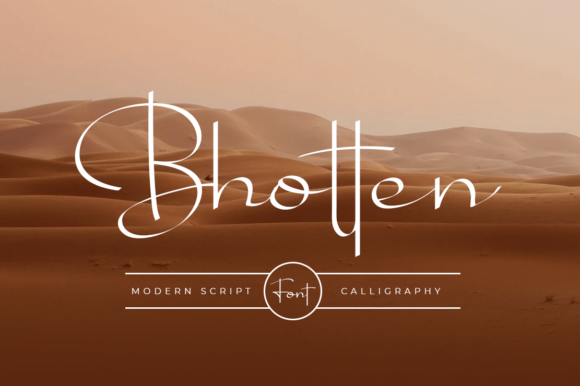
Bhotten Script: Crafting Elegance for Modern Branding
There is a specific challenge in modern design: finding a typeface that balances genuine artistry with functional versatility. We often encounter fonts that are beautiful but illegible, or practical but sterile. Bhotten Script enters this space as a solution for creatives who refuse to compromise. It is a magical script font, carefully constructed with a distinct touch of elegance that bridges the gap between high-end design and accessible creativity. Whether you are curating your aesthetic for Instagram or drafting complex DIY projects, this font offers a fluidity that transforms standard text into a visual statement.
The Visual Personality of Bhotten Script
When analyzing a script font, the details matter. Bhotten Script is not merely a collection of connected letters; it is a cohesive design system. The typeface features a natural, flowing baseline that mimics the rhythm of hand-lettering without the inconsistencies of actual handwriting. The swashes are confident yet restrained, offering enough flair to be interesting without overwhelming the message. This creates a personality that feels authentic and approachable, yet undeniably premium.
The character of Bhotten Script lies in its ability to feel personal. It avoids the overly geometric shapes of modern typography, opting instead for organic curves and varied stroke widths. This gives the creative font a warmth that rigid sans serif font options often lack. It speaks to a sense of craftsmanship, making it an ideal choice for projects that require a human touch. The visual appeal is sophisticated, making it a strong contender for brand identity projects where the goal is to evoke emotion and trust.
Strategic Applications Across Industries
Understanding where a font works best is just as important as liking how it looks. Bhotten Script excels in environments where connection and elegance are paramount. Its versatility allows it to function as a primary display type or an accent element across various mediums.
Branding and Logo Design
For entrepreneurs and small business owners, the logo is the cornerstone of the brand. Bhotten Script serves as an excellent foundation for logo design, particularly for businesses in the lifestyle, beauty, wedding, and artisan sectors. It functions beautifully as a standalone wordmark or paired with a clean serif font or sans serif font for contrast. The font’s inherent elegance helps establish a brand identity that feels established and trustworthy from day one.
Digital Presence and Social Media
In the realm of web design and social media graphics, attention is the currency. Bhotten Script is highly effective for headlines, call-to-action buttons, and Instagram stories. Its visual weight draws the eye, making it perfect for grabbing attention in a crowded feed. However, because it is a display-oriented typeface, it is best used sparingly in digital environments to maintain clarity. For content creators and bloggers, using this font for profile headers or quote graphics adds a layer of professionalism that standard system fonts cannot replicate.
Publishing and Editorial Design
In editorial design, typography guides the reader’s journey. Bhotten Script works wonderfully for chapter titles, pull quotes, or magazine headers. It provides a necessary break from dense blocks of body text, creating a visual hierarchy that makes the layout more digestible. When used in packaging design, the font communicates quality and care, suggesting that the product inside has been crafted with equal attention to detail.
Design Mechanics: Readability and Hierarchy
A font’s success relies on its technical execution. While aesthetics are subjective, readability is objective. Bhotten Script is designed with legibility in mind, even with its cursive connections. The spacing between letters (kerning) is carefully managed to prevent characters from clashing, a common issue in handwritten font styles.
When incorporating Bhotten Script into your work, consider the principles of visual hierarchy. Because it is a display font, it commands attention. Use it for headers and titles to set the tone, but avoid using it for long-form body copy. Long paragraphs in script fonts can cause eye strain. Instead, pair it with a highly legible body font. This contrast not only improves readability but also emphasizes the elegance of the script. The interplay between a functional body type and an artistic header creates a dynamic layout that keeps the reader engaged.
Practical Guidance for Implementation
Integrating a new premium font into your workflow requires more than just installation. To get the most out of Bhotten Script, follow these practical steps:
- Evaluate the Project Fit: Before applying the font, ask if the project requires a formal or casual tone. Bhotten Script bridges these worlds well, but it leans toward elegance. It is perfect for a wedding invitation or a luxury brand, but might feel out of place on a construction company’s technical manual.
- Test Font Pairings: No font is an island. Experiment with pairing Bhotten Script with different weights of a sans serif font for a modern look, or a classic serif font for a traditional vibe. The goal is to create a complementary relationship where the script highlights the key messages.
Ultimately, Bhotten Script is more than just a tool; it is a creative partner. By understanding its strengths and applying it thoughtfully, you can elevate your projects from simple layouts to compelling visual narratives. It empowers designers, marketers, and hobbyists alike to produce work that feels polished, intentional, and deeply artistic.